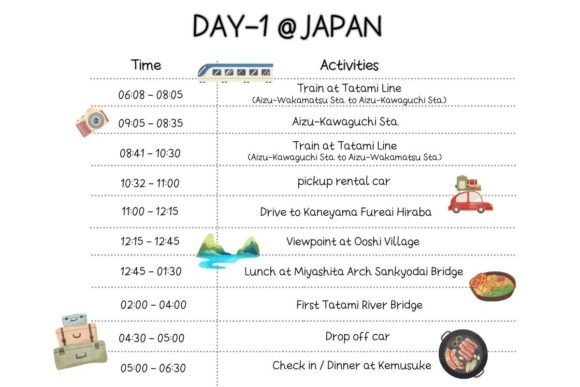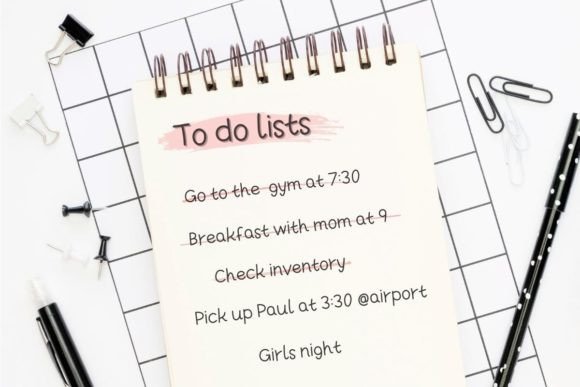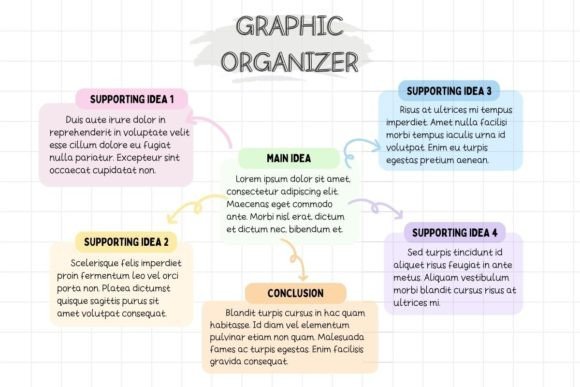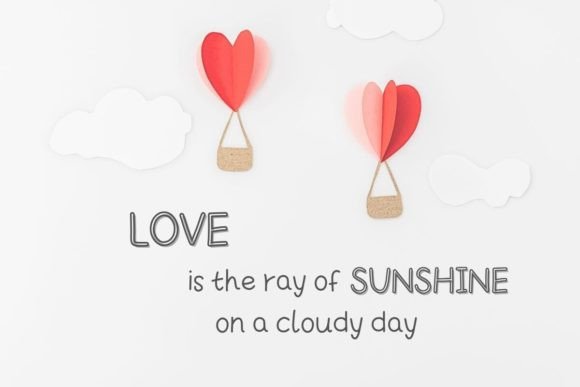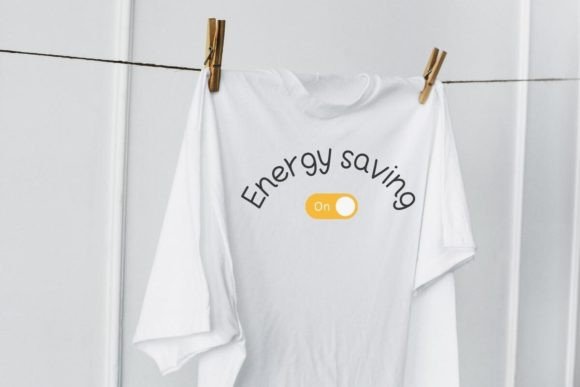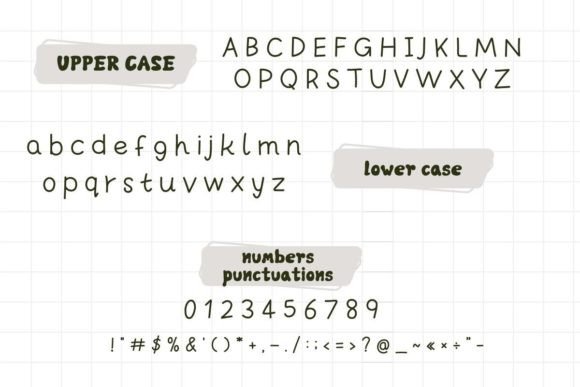
Discover the Perfect Companion for Your Creative Journey
Have you ever found yourself lost in a sea of ideas, trying to bring a project to life? The spark of creativity is a beautiful thing, but it can be fleeting – and that’s where the right tools come in. For designers, writers, and makers, having the right font can be the difference between a mediocre creation and a masterpiece. That’s why we’re excited to introduce you to Cloudy Font, a simple yet elegant handwritten font that’s perfect for digital note-taking.
With Cloudy Font, you can add a touch of personality to your projects, from blog posts and logos to digital planners and invitations. Its versatility and charm make it a valuable asset for any designer looking to elevate their work. Whether you’re a seasoned pro or just starting out, Cloudy Font is sure to become your go-to companion for bringing your creative visions to life.
Cloudy Font Key Features
- Font Family: Cloudy Font is a sans-serif typeface designed for digital use.
- Size: The font family includes various weights, ranging from Light (100) to Extra Bold (800), catering to diverse design needs.
- Resolution: Designed for high-resolution displays, Cloudy Font looks crisp and clear at resolutions up to 300 DPI.
- Unique Characteristics: The font features a unique, modern design with a subtle rounded edge, making it suitable for various digital applications, including websites, mobile apps, and digital publications.
- Character Set: The font includes a comprehensive character set, supporting Latin, Cyrillic, and Greek alphabets, as well as various punctuation marks and symbols.
Designer Review: Cloudy Font
Overall, I was excited to dive into the world of Cloudy Font, but my experience was a mixed bag. Let’s break it down:
- The unique blend of rounded edges and smooth curves creates a friendly, approachable feel.
- The font’s versatility makes it suitable for a wide range of applications, from body text to headings.
- Cloudy Font’s extensive character set includes a variety of language support, making it a great choice for international projects.
- The font’s legibility can be affected by the size and resolution of the display. At smaller sizes, the letterforms can become fuzzy.
- Cloudy Font’s style may not be the best fit for formal or professional applications, as it has a more casual tone.
- The font’s weight distribution can make it difficult to read in certain situations, particularly when used in combination with bold or italic text.
In conclusion, Cloudy Font is a solid choice for designers looking for a friendly, approachable font. While it has some limitations, its versatility and unique style make it a great option for a wide range of projects.
Tips for getting the most out of Cloudy Font in Canva: Use it to add a weather-inspired touch to your graphics and designs.
Tips for getting the most out of Cloudy Font in Adobe Photoshop or Illustrator: Use it to create custom typography for your designs and graphics.
Tips for getting the most out of Cloudy Font in PowerPoint or Word: Use it to add a touch of elegance and sophistication to your presentations and documents.
Cloudy Font is commonly used in:
- Weather-themed designs and graphics.
- Outdoor and nature-inspired designs.
- Formal and elegant presentations and documents.
Open Sans is a clean and modern sans-serif font. It’s ideal for use in digital products, such as websites and mobile apps, where legibility is crucial. Open Sans is similar to Cloudy Font in its sans-serif style, but it lacks the distressed texture, making it more suitable for minimalist designs.
Playfair Display is an elegant, high-end serif font. It’s perfect for use in luxury branding, invitations, and other high-end materials where sophistication is key. Unlike Cloudy Font, Playfair Display has a more refined and classic feel, making it better suited for formal designs.
Montserrat is a geometric sans-serif font inspired by urban typography. It’s ideal for use in modern and urban designs, such as city guides, fashion brands, and technology companies. Montserrat is similar to Cloudy Font in its modern feel, but it has a more geometric and structured look, making it better suited for bold and edgy designs.